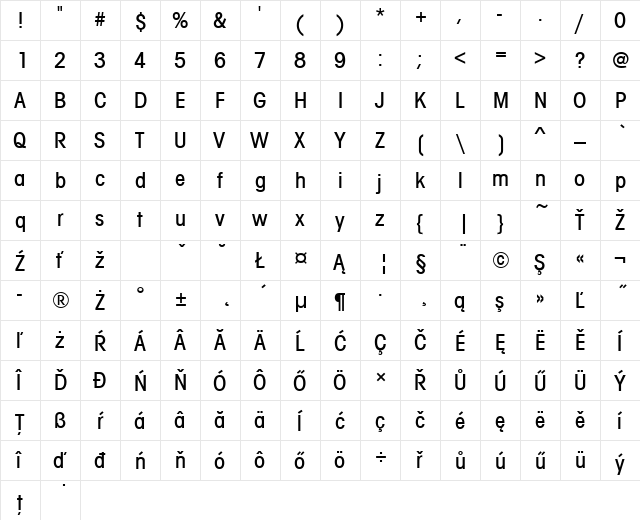
AvantGarGotItcTEEMedCon Regular
Design Context for AvantGarGotItcTEEMedCon Typeface
AvantGarGotItcTEEMedCon offers clean, dependable letterforms without strong stylistic allegiance, making it a practical choice for designers who need flexibility.